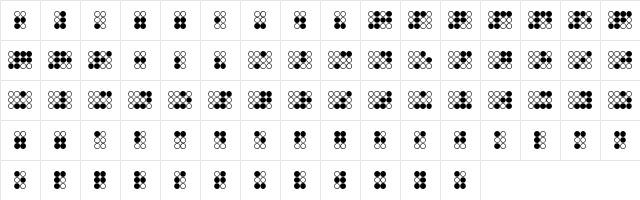
braille bold Regular
Design Context for braille bold Typeface
braille bold offers clean, dependable letterforms without strong stylistic allegiance, making it a practical choice for designers who need flexibility. The heavy weight commands attention and anchors typographic hierarchies.